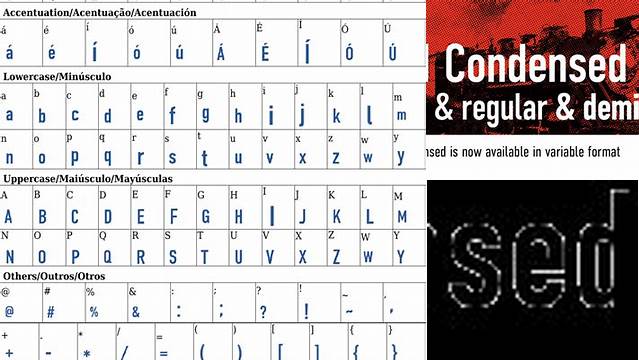
DIN Condensed Regular Font: Your Free Download Guide
Unlocking the Power of DIN Condensed Regular Font: A Designer's Best Friend
Hey guys! Today, we're diving deep into the world of typography, and specifically, we're going to talk about a font that's become a real workhorse for designers everywhere: DIN Condensed Regular. You might have seen it popping up in everything from sleek tech logos to eye-catching posters, and there's a good reason for its popularity. It's clean, it's modern, and it packs a serious punch when it comes to readability and impact. If you're looking to elevate your design projects, understanding the nuances of this font is key. We'll explore why it's so versatile, where it excels, and most importantly, how you can get your hands on it for free. So, buckle up, because we're about to unlock the secrets of the DIN Condensed Regular font and make it a staple in your own design toolkit. This font isn't just about letters; it's about conveying a message with clarity and style, and we're going to show you how to do just that. Its condensed nature means it takes up less horizontal space, which is a lifesaver for tight layouts and attention-grabbing headlines. Plus, its geometric roots give it a sophisticated yet approachable feel, making it suitable for a wide range of applications. Whether you're a seasoned pro or just starting out, mastering this font will undoubtedly give your work a professional edge.
Why DIN Condensed Regular Font is a Go-To Choice for Modern Design
So, what makes the DIN Condensed Regular font so darn special, you ask? Well, it all comes down to its incredible versatility and aesthetic appeal. This font hails from the legendary DIN (Deutsches Institut fĂŒr Normung) typeface family, which was originally developed for signage and technical documentation in Germany. This heritage gives DIN Condensed Regular a sense of authority and clarity that's hard to beat. Its condensed form is its superpower, allowing you to fit more text into a limited space without sacrificing readability. Think about those jam-packed posters or website headers where every inch counts â DIN Condensed Regular is your knight in shining armor. It maintains a strong visual presence even at smaller sizes, making it perfect for body text as well as attention-grabbing headlines. The 'Regular' weight strikes a beautiful balance, offering enough heft to be substantial but remaining light enough to feel elegant and airy. Designers love it because it's legible, professional, and has a subtle, geometric charm that doesn't overpower the content. Itâs the kind of font that lets your message shine through, adding a touch of sophistication without being fussy. Whether you're designing a corporate brochure, a minimalist website, or a vibrant event poster, this font adapts beautifully. Its clean lines and consistent stroke width ensure a crisp appearance on both digital screens and print materials, contributing to its widespread adoption across various industries. The inherent structure of the DIN family also lends a sense of order and efficiency, which resonates well in today's fast-paced world. Itâs a font that communicates reliability and forward-thinking, making it an excellent choice for brands that want to project a modern and competent image. Plus, its understated elegance means it plays well with other fonts, giving you plenty of creative freedom.
Exploring the Aesthetic Appeal of DIN Condensed Regular Font
Let's talk about the look and feel of the DIN Condensed Regular font, guys. Itâs not just about functionality; this typeface has a distinct aesthetic that appeals to a lot of us in the design world. Its condensed nature gives it a tall, slender profile, which automatically lends a sense of sophistication and efficiency. Imagine a perfectly tailored suit â thatâs kind of how DIN Condensed Regular presents itself; it's sharp, clean, and always looks put-together. The geometric construction, a hallmark of the DIN family, means that the letterforms are based on simple shapes like circles and squares. This results in a very balanced and harmonious appearance. Thereâs a certain neutrality to it, which is actually a huge strength. It doesn't impose its personality too heavily on your design, allowing your content and overall branding to take center stage. Yet, itâs not boring! The subtle curves and the carefully considered spacing give it a friendly and approachable vibe, making it incredibly versatile. Whether you're aiming for a minimalist, high-tech look or something a bit more classic and understated, DIN Condensed Regular fits right in. Its clean lines ensure excellent legibility across a variety of mediums, from small print on a business card to large signage. The âRegularâ weight offers a pleasing middle ground â itâs substantial enough to anchor a headline but not so heavy that it overwhelms the eye in longer passages. This careful balance makes it a reliable choice when you need a font that performs beautifully without demanding excessive attention. The overall impression is one of understated confidence and modern elegance, making it a favorite for brands that want to convey professionalism and clarity. Itâs a font that whispers quality rather than shouting it, which is often the most effective approach in design.
Maximizing Legibility with DIN Condensed Regular Font: Tips for Success
We all know that a fontâs beauty is nothing if itâs unreadable, right? Thatâs where the DIN Condensed Regular font truly shines, but like any powerful tool, knowing how to use it effectively is key. Its condensed nature means itâs designed to be space-efficient, but this also means you need to be mindful of how you deploy it, especially in longer blocks of text. For body copy, consider using it at a slightly larger point size than you might a regular-width font to ensure comfortable reading. Pairing it with adequate line spacing (leading) is also crucial. Giving those letters a bit of breathing room between lines prevents the text from feeling cramped and improves the overall flow. Think of it as giving each line its own personal space â it makes a big difference! When using DIN Condensed Regular for headlines or titles, its impact is undeniable. The tall, slender form grabs attention and commands focus. Don't be afraid to experiment with different weights if they are available, but the 'Regular' weight often strikes a perfect balance for headlines that need to be clear yet stylish. Another tip for maximizing legibility is to pay attention to kerning â the spacing between specific pairs of letters. While many digital fonts have good default kerning, sometimes fine-tuning can make a significant difference, especially in large headlines where letters might appear too close together. Test your text on different screen sizes and in print to ensure it remains clear and easy to read. What looks great on your high-resolution monitor might appear slightly different on a mobile device or in a smaller print format. Ultimately, the goal is to leverage the fontâs inherent strengths â its clarity and efficiency â while mitigating any potential readability challenges that come with its condensed form. With a little attention to detail, DIN Condensed Regular will serve you exceptionally well.
The Versatility of DIN Condensed Regular Font in Graphic Design Projects
When we talk about the DIN Condensed Regular font, one of the first things that comes to mind is its sheer versatility, guys. This isn't a one-trick pony; itâs a font that can adapt and excel in a surprising number of graphic design scenarios. Need to create a striking poster for an event? DIN Condensed Regularâs tall, impactful form is perfect for headlines that need to cut through the noise. Its clean, geometric lines also lend themselves beautifully to branding and identity design. Think sleek logos for tech startups, sophisticated packaging for consumer goods, or clean website headers. The condensed nature means you can create strong typographic statements without taking up too much visual real estate, which is a massive advantage in logo design where simplicity and clarity are paramount. Beyond headlines and logos, it can also work effectively for shorter blocks of text, like captions, pull quotes, or even subheadings within a layout. Its readability in the âRegularâ weight makes it a solid choice for UI design, where text needs to be clear and concise on various screen sizes. Imagine using it for navigation menus, button labels, or informational tooltips â itâs dependable and modern. For editorial design, like magazines or brochures, it can be used for titles, section headers, or even as a complementary font for body text if paired wisely with a more conventional typeface. The key is understanding its strengths: clarity, efficiency, and a modern, geometric aesthetic. Whether youâre designing for print or digital, DIN Condensed Regular offers a professional and contemporary feel thatâs widely appreciated. Its ability to convey information clearly and stylishly makes it a valuable asset for almost any project you can dream up. Itâs a font that says youâre serious about design and your message.
DIN Condensed Regular Font: Perfect for Headlines and Titles That Pop
Letâs be real, guys, sometimes you just need a font that screams âLook at me!â and thatâs exactly what the DIN Condensed Regular font does exceptionally well when it comes to headlines and titles. Its condensed structure means it has a strong vertical presence, making it inherently eye-catching. When youâre designing a poster, a website banner, or any piece of collateral where you need to grab someoneâs attention immediately, this font is your secret weapon. The âRegularâ weight offers a fantastic balance â itâs bold enough to stand out but not so heavy that it becomes clunky or difficult to read. The clean, geometric sans-serif style gives it a modern and sophisticated edge, ensuring your headline looks professional and impactful. Think about pairing it with a contrasting, perhaps more rounded or serif font for the body text, and you create a dynamic typographic hierarchy that guides the readerâs eye. Its inherent efficiency means you can often fit longer titles into tight spaces without them looking stretched or awkward. This is particularly useful for social media graphics or any layout where screen real estate is limited. The legibility is superb, even at larger display sizes, ensuring your message is communicated clearly and forcefully. Donât underestimate the power of a well-chosen headline font; it sets the tone for your entire design. DIN Condensed Regular nails this requirement, providing that perfect blend of style, clarity, and attention-grabbing power. Itâs a font that communicates confidence and purpose, making sure your most important text gets the attention it deserves. Experiment with different color contrasts and sizes to really make those titles sing!
The Subtle Strength of DIN Condensed Regular Font in Body Text
While the DIN Condensed Regular font is undeniably a star player for headlines, its capabilities donât stop there. Surprisingly, it can also be a solid choice for body text, provided you use it thoughtfully, guys. The key here is subtlety and strategic application. Because itâs condensed, youâll want to give it a little more breathing room than you might a standard-width font. This means paying close attention to line spacing (leading) and potentially increasing the point size slightly. Adequate leading prevents the text from feeling too dense and improves the overall readability, allowing the letters to flow more smoothly from one line to the next. Think of it as creating a comfortable reading rhythm. When used for body copy, DIN Condensed Regular offers a clean, modern, and efficient reading experience. Its geometric sans-serif structure ensures that even longer passages remain clear and easy to digest. Itâs particularly effective in digital applications where screen space can be limited, allowing you to fit more content without compromising clarity. For print, it works well in contexts where a minimalist or technical aesthetic is desired, such as in manuals, reports, or data-heavy documents. The âRegularâ weight provides just enough substance to make the text feel grounded without being overwhelming. When pairing it with other fonts, consider a slightly wider or more traditional font for contrast, which can help balance the overall typographic composition. The trick is to ensure that the reader isn't strained. Test it out! Read a few paragraphs aloud to check the flow and comfort. With careful adjustment of size and spacing, DIN Condensed Regular can lend a unique, organized, and professional feel to your longer texts, proving its worth beyond just eye-catching headlines. Itâs a testament to its well-balanced design.
Final Thoughts on Your Free DIN Condensed Regular Font Download
So there you have it, guys! We've journeyed through the world of the DIN Condensed Regular font, exploring its design, its applications, and importantly, how you can get your hands on it for free. Remember, this font is a fantastic asset for anyone looking to bring a touch of modern, geometric sophistication and efficient clarity to their designs. Whether you're crafting a killer headline, designing a clean brand identity, building a user-friendly website, or laying out an informative infographic, DIN Condensed Regular offers remarkable versatility. Always prioritize downloading from reputable sources to ensure you get quality files and understand the associated licensing. Pay attention to the tips on legibility, especially when using it for body text, and don't be afraid to pair it with other typefaces to create dynamic and engaging compositions. Keep honing your skills, experimenting with different applications, and most importantly, have fun with it! Having a reliable, stylish font like DIN Condensed Regular in your toolkit can make a significant difference in the professionalism and impact of your design work. Happy designing, and enjoy using this awesome font!